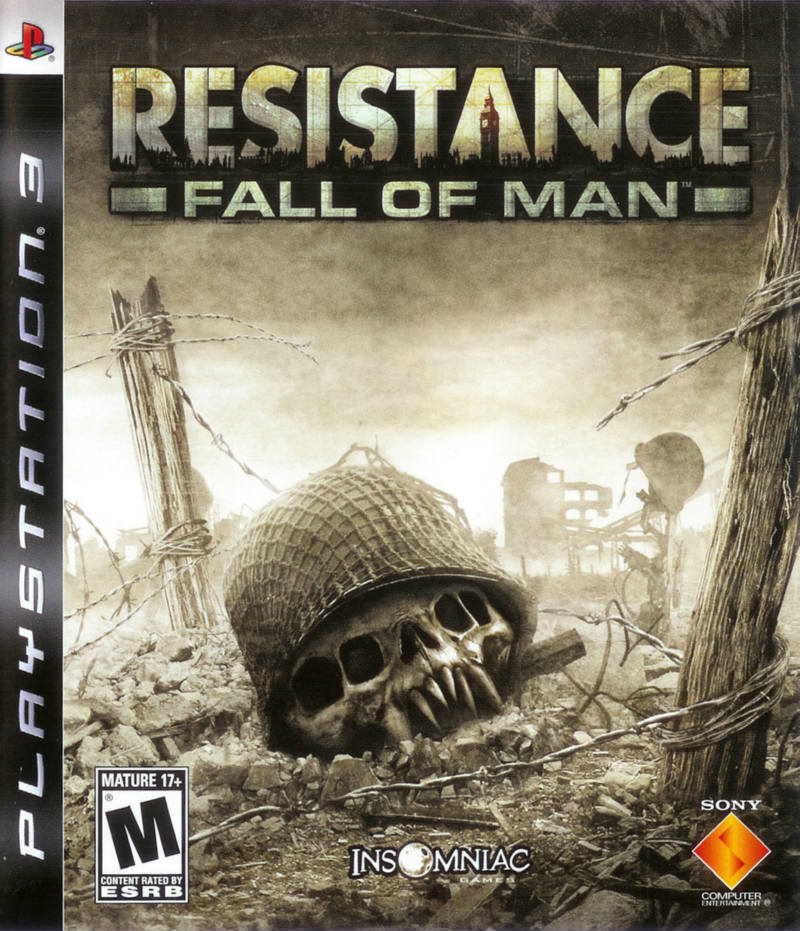
Resistance Fall of Man Font
Fonts in UseResistance: Fall of Man is a first-person shooter video game released in 2006 for the PlayStation 3 console. It follows the story of an American soldier fighting against an alien invasion in an alternate history version of 1950s Europe.
The game's logo consists of two distinct fonts; the "RESISTANCE" part of the logo appears to have been created using the Futura Bold font by Paul Renner, while the "FALL OF MAN" section uses the Eurostile Extended #2 Bold font by Aldo Novarese, which is also a geometric sans-serif typeface.